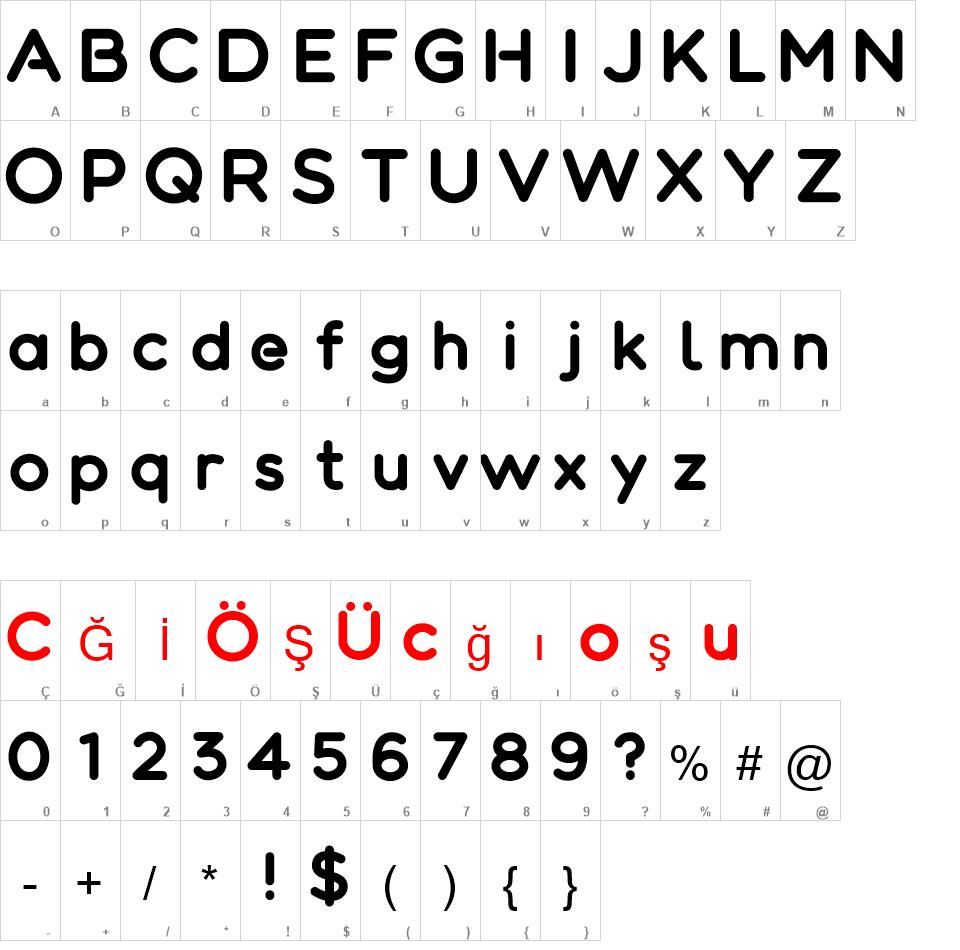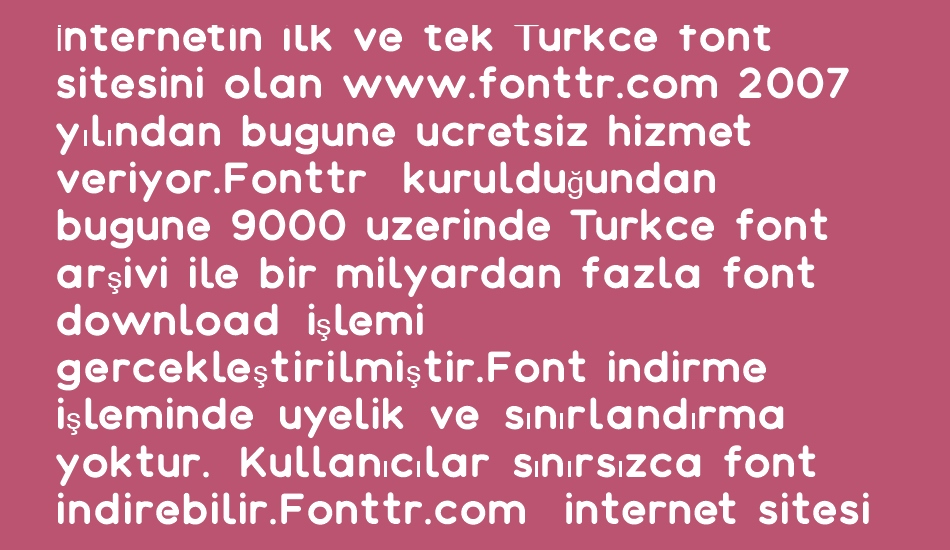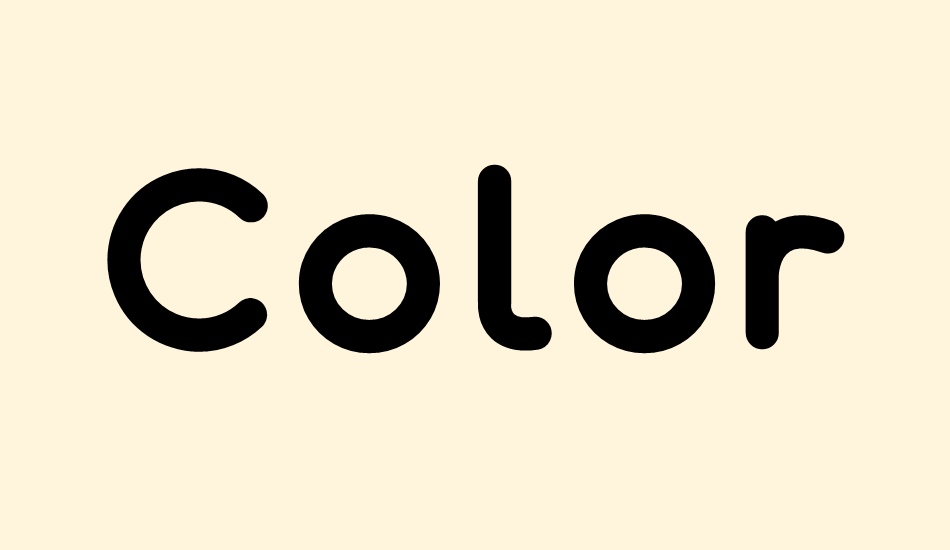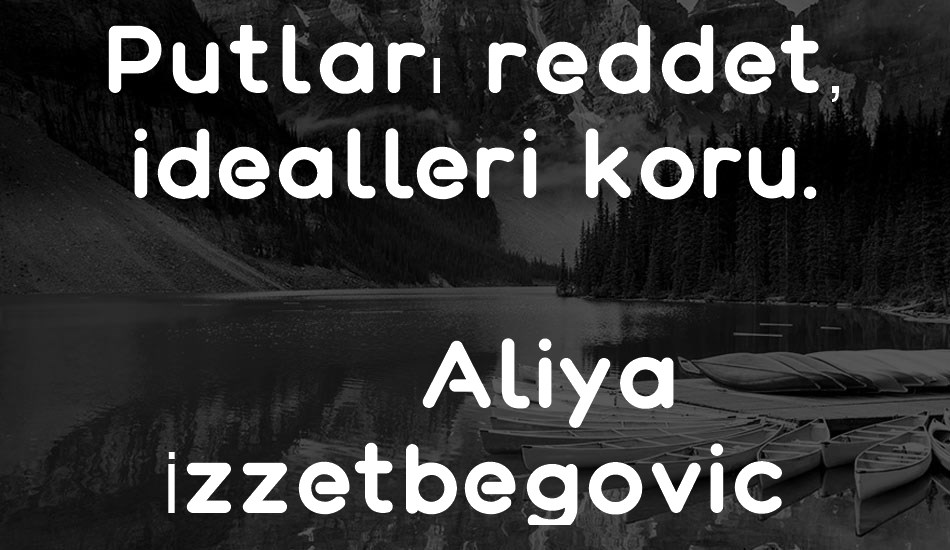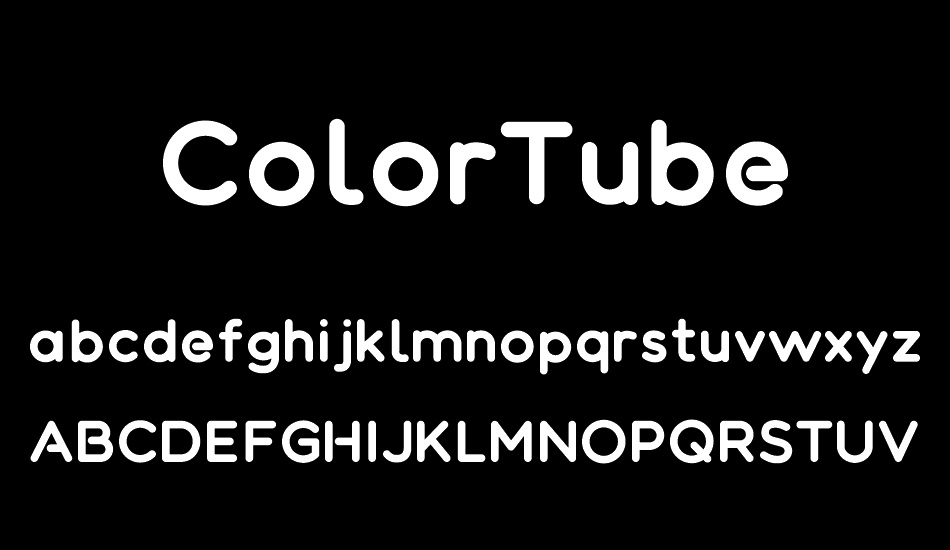
Colortube font
Colortube
ColorTube is the first FREE *colored font by Ivan Filipov. He started working on it a few years after he created Multicolore. The typeface is constructed following geometric principles. Also, notice that not all endings or crossings are following the “color overlay” logic—as Ivan says himself he did some changes to make it more appealing. For now, ColorTube supports Basic Latin character set. In the future, he’s planning to add accented character and diacritics, as well as Cyrillic. You can see more of Ivan’s projects on his website – neogrey.com
ColorTube font